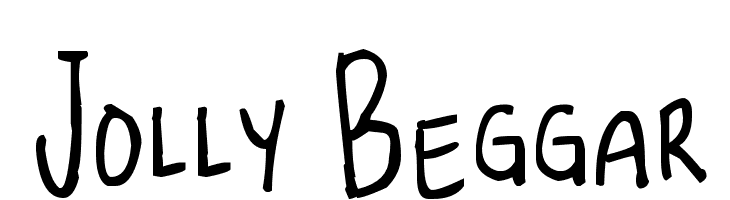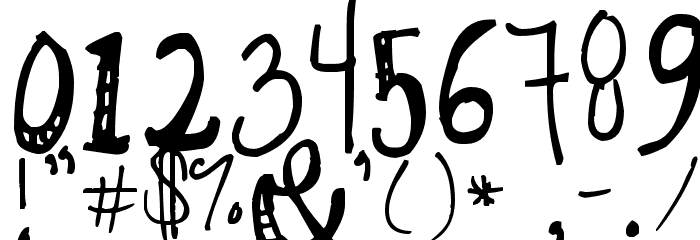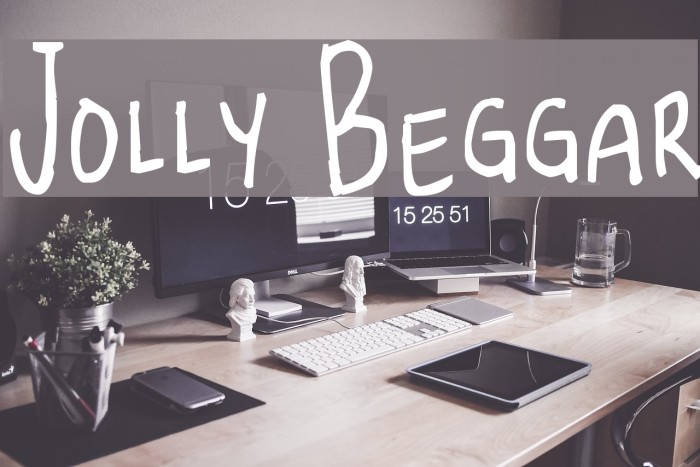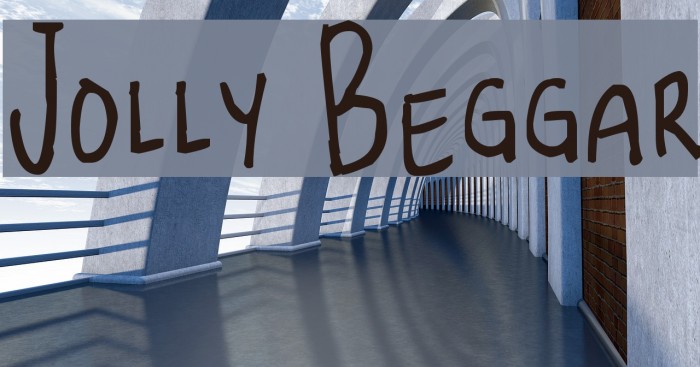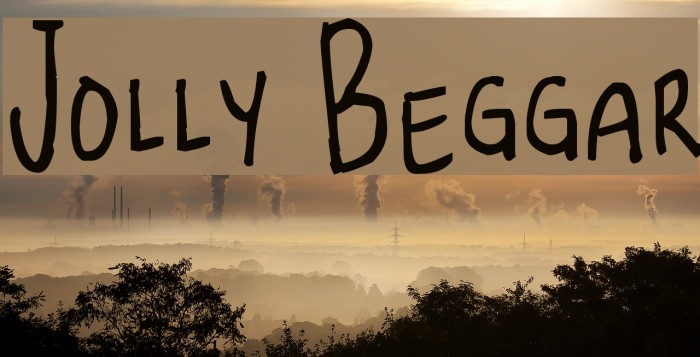
Jolly Beggar Font
Jolly Beggar Description
This font features a playful and whimsical handwritten style, characterized by uneven strokes and a casual, informal appearance. The uppercase letters are tall and narrow, with a slight tilt that adds to the font's quirky charm. The lowercase letters maintain a consistent style, complementing the uppercase with their rounded and slightly irregular forms. Numbers and special characters follow the same playful aesthetic, making the font suitable for creative and fun projects. The overall look is dynamic and energetic, perfect for capturing attention in a lighthearted manner.
A playful, handwritten font with uneven strokes and a whimsical style from Handwritten fonts.
- Proposed Projects: Ideal for children's books, greeting cards, playful branding, and creative posters.